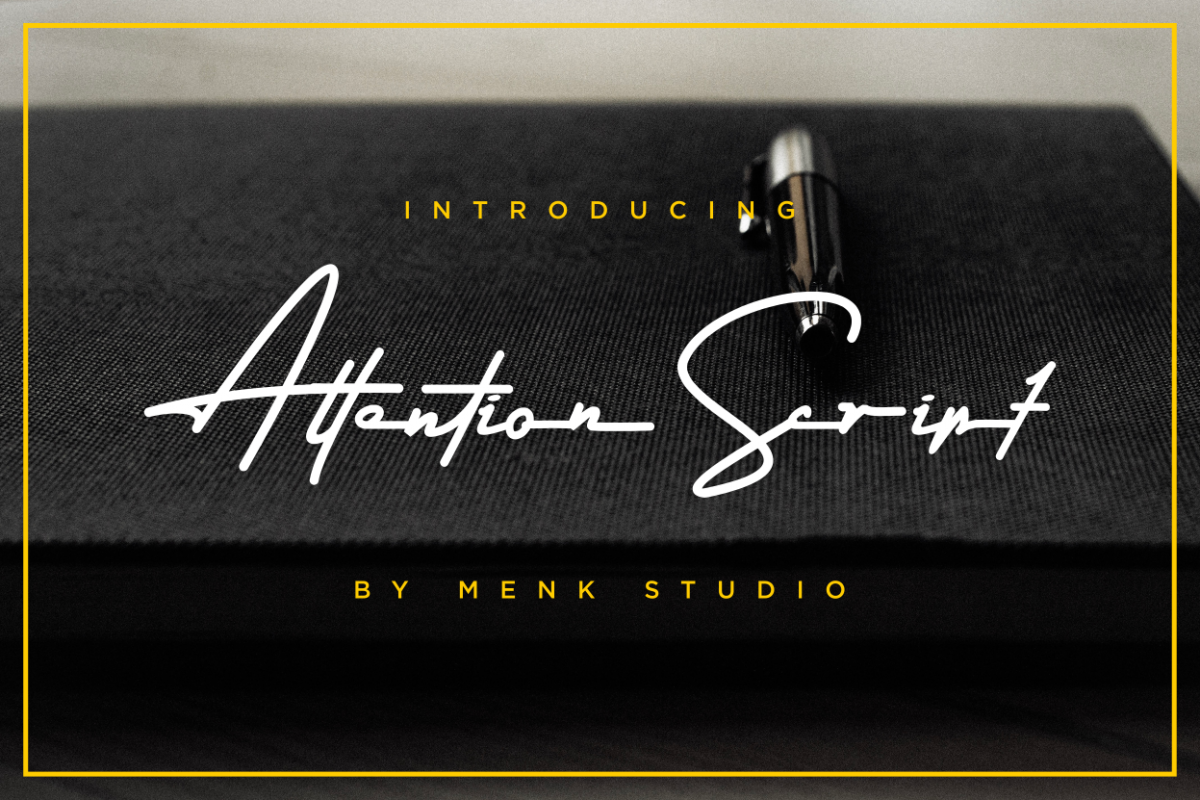
Attention Script
Attention Script - a new modern & fresh script with a handwritten and signature style make this font looks elegant, natural, stylish and perfect for any awesome projects that need handwriting taste.